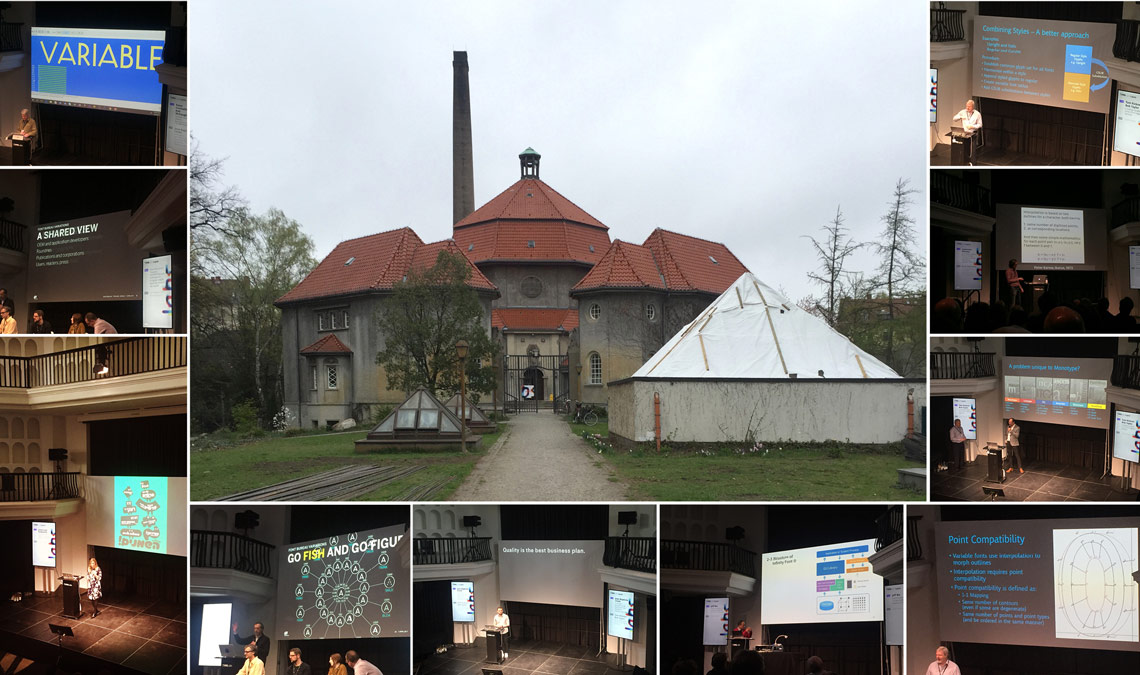
TYPO Labs 2017
The second TYPO Labs took place in Berlin on the second week of April 2017. After last year’s announcement of Google’s first experimentations on GX-variation technology by Behdad Esfahbod, it was time to reap the benefits of this new technology. Senior type designer Irene Vlachou and type engineer Joancarles Cassasín attended the second TYPO Labs in Berlin last month, organized by Monotype and wrote a report about it.
“If you want something new, you have to stop doing something old”
It has been only six months from the official announcement of OpenType 1.8 at ATypI Warsaw, and the topic of the Variable font format (VAR) was the undisputed star of this year’s Monotype-hosted font technology conference. Compared to technical conferences of previous years, the number of attendees was dramatically increased, demonstrating widespread excitement for this new technology from individual type designers to large tech and software corporations.
Wide variety was also evident in the list of the speakers: from playful Underware and how they experiment with interfaces of Variable fonts, to techie Werner Lemberg and how he dealt with the auto-hinting of Noto Sans.
The characteristics of the new Variable font format have the possibility to shake the foundations of typography — something apparent in all talks. Designers and developers are questioning old assumptions and already asking for more.
Liron Lavi Turkenich’s talk was the first to question the boldness of a design and explain how cultural background can influence what we consider to be bold. She used Variable Hebrew fonts to pose this question directly to the audience and showed that Variable fonts can be used as an educational tool.
John Hudson talked about the stylistic variants that are necessary in the support of complex scripts and mathematics, and proposed that VAR fonts can offer a compact file size and flexibility on the design that we didn’t have before. Marianna Paszkowska’s presentation was about the possibilities that Variable fonts open for more artistic typographic experiments.
We could summarise the interest in Variable fonts in the following way:
_ Development tools and implementation of the VAR specification
_ Foundries and industry
_UI and bringing it to the world
PART 1, tools
The three main font editing apps presented their latest capabilities and their implementation of the new OT 1.8 specification. Fontlab presented their new interface for spacing and kerning. Glyphs announced their new standalone apps: MergeGlyphs to compare and merge Glyphs files, CommitGlyphs which is an extension app for Git, and FontTable Viewer to view a font’s raw tables.
Robofont announced version 2.0 that is built within the OpenType 1.8 spec and UFO3 support. RoboFab tools have been replaced by FontParts, and a new Extension Store will contain all the scripts and custom tools that have been written for Robofont.
Dutch Type Library
presented tools and extensions for auto-spacing that they built for Glyphs and Robofont. Adam Twardoch showed a set of (mostly experimental) tools and scripts available at GitHub for developing OpenType fonts and making Variable fonts.
Erik van Blokland talked about the ‘designspace’, a fundamental aspect of how we think about and design variable fonts. In Superpolator and MutatorMath, designspace is the document that describes the relation between masters and all the information that one needs for interpolation and variable fonts. His talk was focused on how designspace has changed in the new variation model compared to MutatorMath.
In one workshop, Georg Seifert and Rainer Erich Scheichelbauer showed how to use the Glyphs smart components for the type design process. From Process Type Foundry, Nicole Dotin’s workshop was about shell scripting (no mouse needed) and making webfont specimens easily by using the Terminal and a Bash script.
Mike Duggan of Microsoft led a Variable font hinting workshop. He discussed how hinting a Variable font can mean that we hint only the Regular weight. Here is an article about it.
part 2, foundries
The first talk of the conference was from Dan Rhatigan who summarised what has happened this year in VAR development. In it he set the tone during the conference for corporations to admit that they have neither a solid business plan nor solid tools for producing the Variable fonts they’d like to. At the same time he presented Adobe’s latest experimental project of Source Serif supporting Chinese, Japanese, Korean, and Vietnamese (CJKV) languages, and the new possibilities that VAR fonts offer for that particular market.
Sampo Kaasila talked about the visual representation of a font chooser that could be convenient for the VAR market. The remarkable thing was that this platform (not yet released) was based on AI technology and resulted in the shape of a bird.
Microsoft’s Peter Constable and Rob McKaughan talked about the OpenType 1.8 specificat and how PCs can display the named instances of Variable fonts even if the browser doesn’t support them. This is not a webfont, but locally installed fonts. So, in theory, Windows could actually implement VAR fonts in their basic apps. They then discussed using Variable fonts for virtual reality.